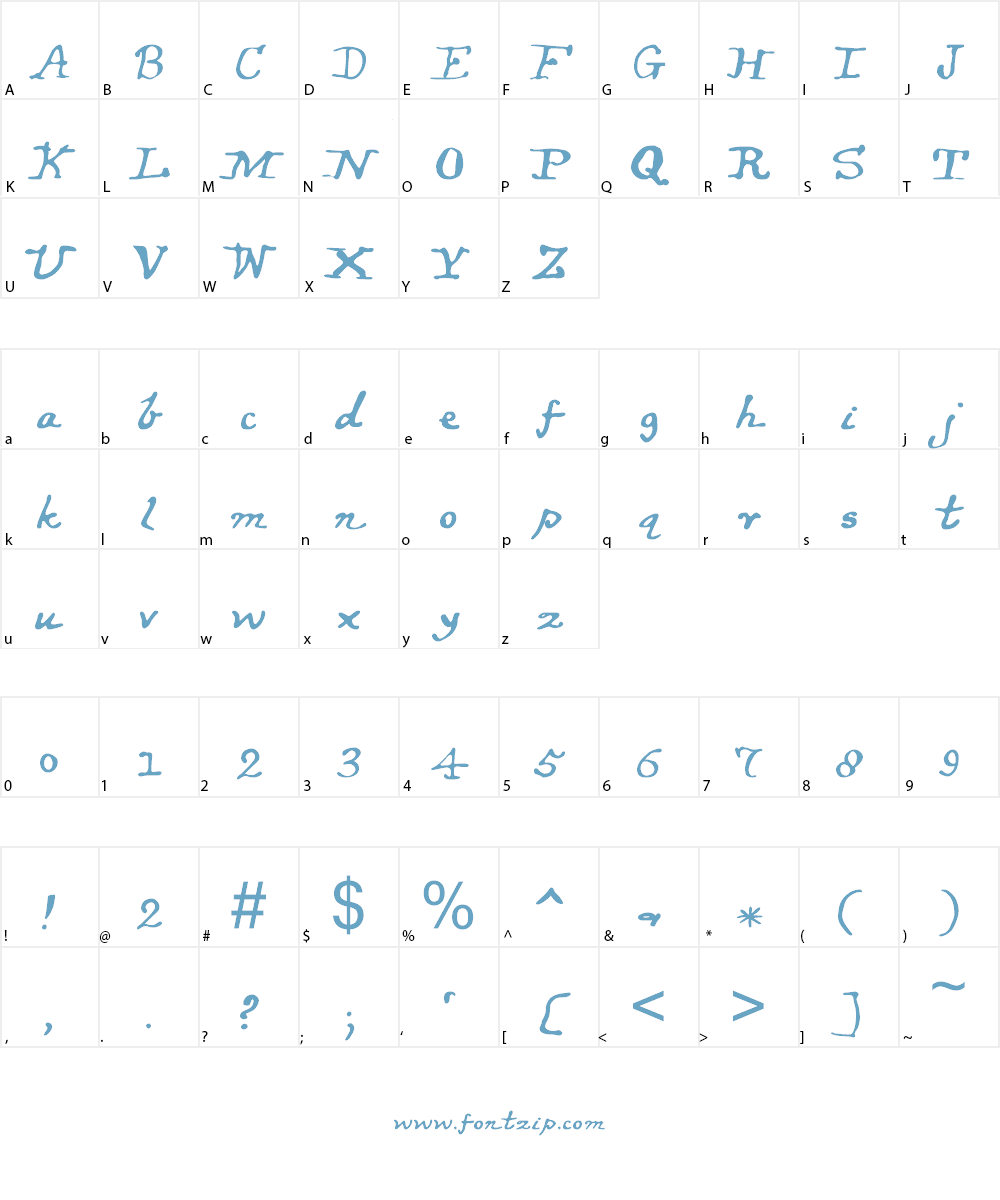
Based on the handwriting and doodles of Lewis Carroll (Charles L. Dodgson), author of Alice's Adventures in Wonderland and Through the Looking Glass, among other books.